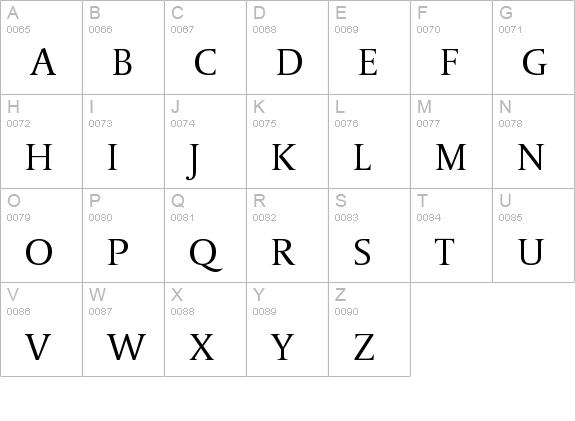
DTLParadoxST Font Details
DTLParadoxST is a stylish and modern font that offers a unique blend of elegance and sophistication. Its sleek lines and balanced proportions make it perfect for a wide range of design projects, from branding to editorial layouts. With its versatile design, DTLParadoxST can effortlessly adapt to various contexts, whether it's used for a logo, a website, or a poster. The font features a wide range of characters, including uppercase and lowercase letters, numbers, symbols, and punctuation marks, ensuring that you have everything you need to create stunning typography. Its clean and crisp appearance will add a touch of professionalism to any project, while its subtle details give it a distinctive personality. Best of all, DTLParadoxST is available for free download at FontsMarket.com, making it accessible to designers of all skill levels. Whether you're a seasoned professional or just starting out, this font is sure to elevate your designs and make a lasting impression. Experience the beauty and versatility of DTLParadoxST today and take your typography to the next level.